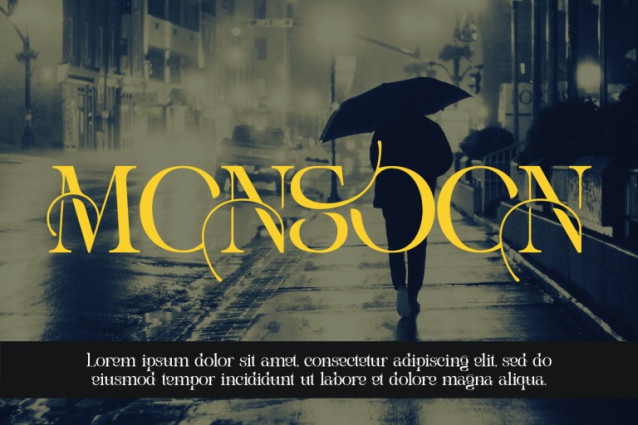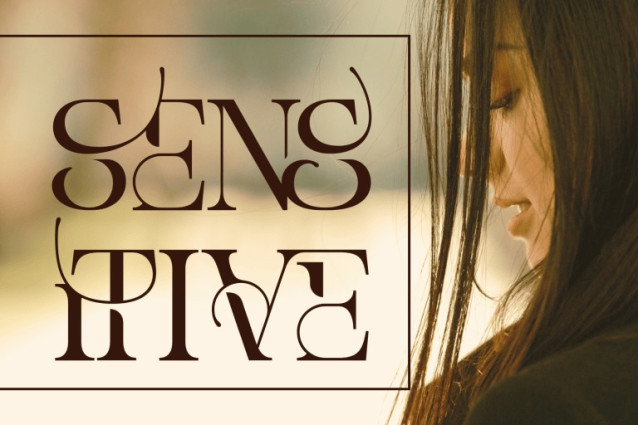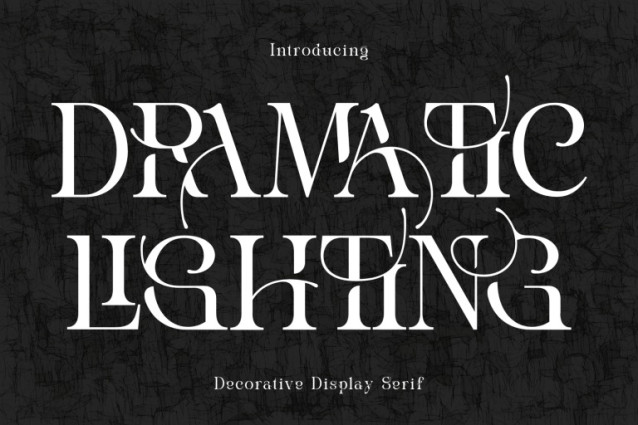
Dramatic Lighting Font
DRAMATIC LIGHTING FONT – A Dramatic Experimental Serif Display, a bold serif display font that merges classic elegance with a daring modern twist. Featuring sharp contrasts, experimental ligatures, and striking elongated curves, this font creates a dramatic and unforgettable visual impact. Perfectly crafted for editorial headlines, luxury branding, fashion campaigns, poster design, and high-end packaging, DRAMATIC LIGHTING balances sophistication with avant-garde creativity. Each character feels both structured and free-flowing, making it a versatile choice for designers who want to make a statement.
🔤Font Features:
Uppercase & Lowercase Letters
~100 Special Ligatures
Accented Characters for multilingual support
🔤About 100 ligatures combined with Stylistic Alternates Font:
AC AD AL AN AR AS AT AU AV BE CA CE CH CO CT DE DI EA EC ED EE EL EM EN EP ER ES ET FE FO FR GE HA HE HI HO IE IC IL IN IO IR IS IT JU KE LA LE LI LL LO LY MA ME MI NC ND NE NG NO NT NS OC OF OM ON OO OP OR OT OU OW PA PR RA RD RE RI RO RS RT SE SH SI SO SS ST TA TE TH TI TO TR TT UM UN UR VE WI WO